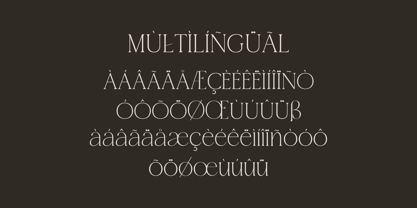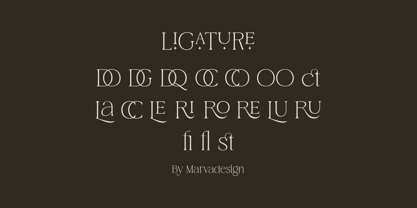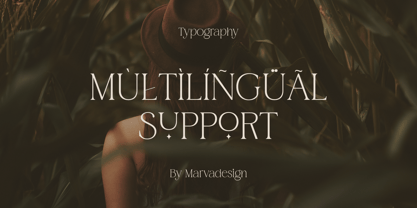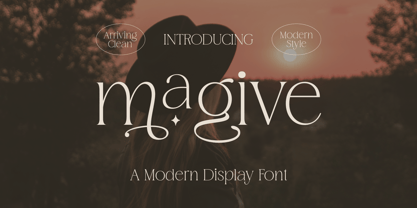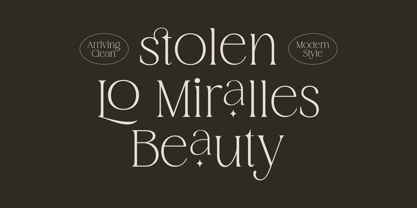
Magive
by Marvadesign
The Magive Font Family was designed by Febrie Setiawan and published by Marvadesign. Magive contains 1 styles. More about this family
Introducing Magive is an exquisite elegant serif font that exudes luxury and sophistication. Designed with refined curves and delicate serifs, this typeface brings a sense of opulence and grace to any design it graces. Its timeless aesthetic makes it the perfect choice for premium branding and upscale product designs.
The carefully crafted letterforms of Magive reflect meticulous attention to detail, giving the font a harmonious balance between classic and modern elegance. Its versatility allows it to enhance a wide range of applications while maintaining a luxurious visual identity.
Designers: Febrie Setiawan
Foundry: Marvadesign